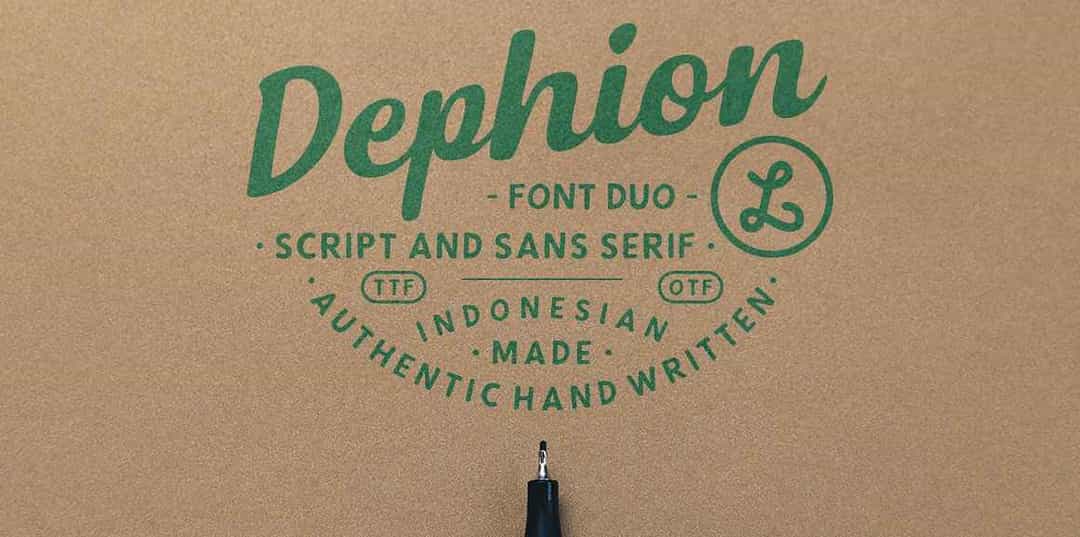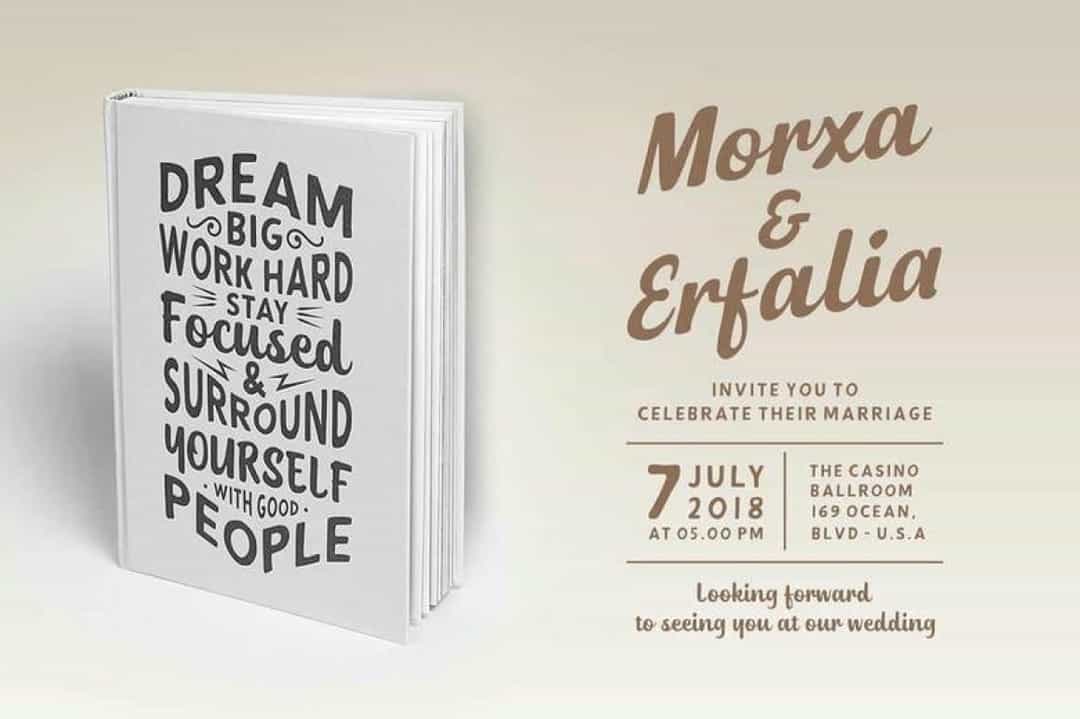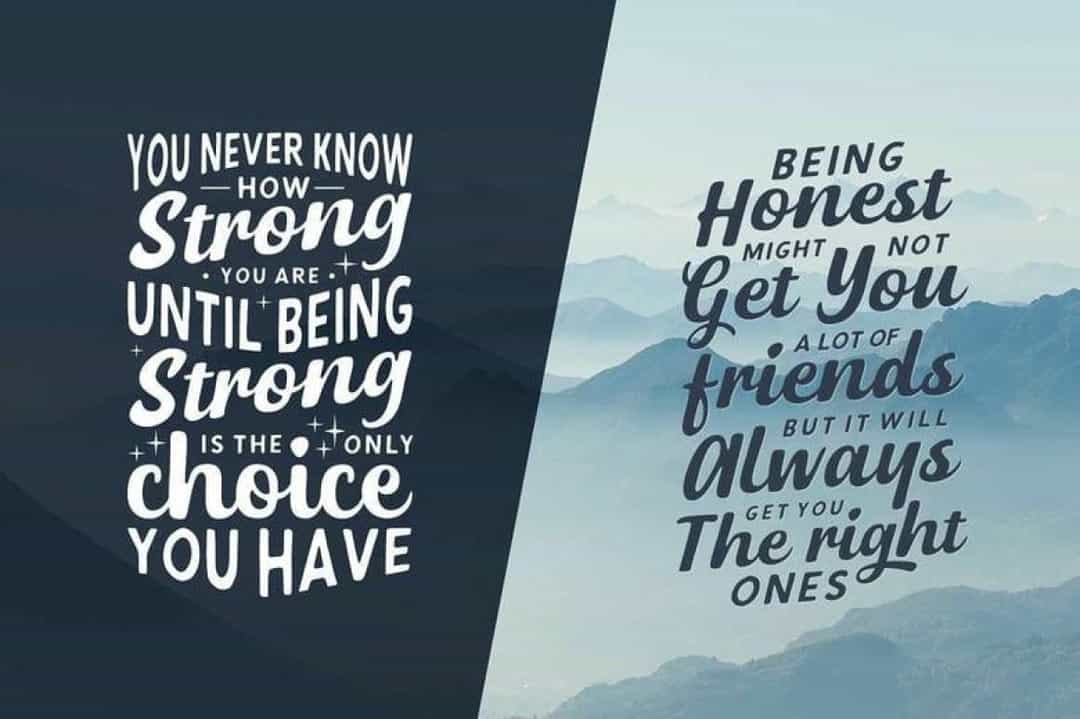
Discover Dephion Script Font, part of the Brush collection—a versatile and unique font perfect for adding a personal touch to your projects. Download it for free and enjoy crafting designs with style, from invitations to social media posts. This font is available exclusively for personal use, giving you the freedom to create without limits. Unlock your creativity with Dephion Script Font today!
Dephion Font is the newest creation of Locomotype and the whole process, from the design to the production, was made by the company. Dephion has manually drawn fonts with natural calligraphy that makes them unique. There are three versions: Dephion script normal, its slanted variant Dephion sans that give the opportunity to create beautiful designs with casual appearance.